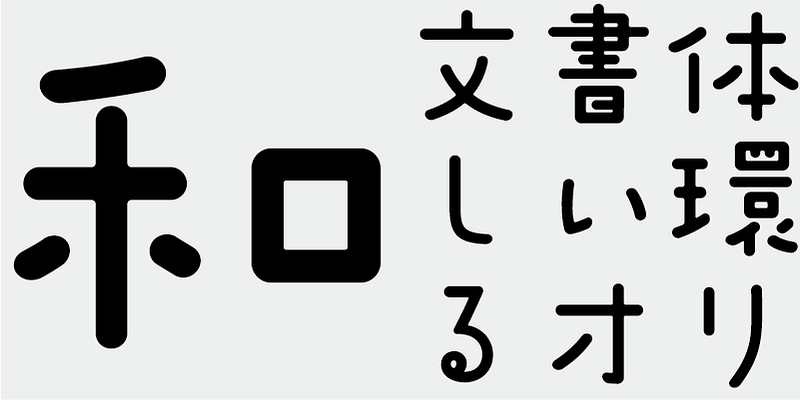
AB Babywalk Font Free Download is a cute and playful Japanese typeface inspired by childlike handwriting and lighthearted designs. The name "Babywalk" evokes a sense of fun, innocence, and exploration, making it perfect for projects aimed at children or projects that need to convey a sense of warmth and joy. It’s ideal for baby product branding, children’s books, playful event invitations, educational materials, or any design that requires a friendly and approachable feel.
AB Babywalk Font Free Download features rounded strokes, slightly irregular shapes, and a bouncy rhythm that makes it feel hand-drawn and organic. It supports Hiragana, Katakana, Kanji, and basic Latin characters, making it versatile for bilingual designs and content.
Charming, fun, and full of personality—AB Babywalk Font is the perfect choice when you need typography that feels light, playful, and full of joy.